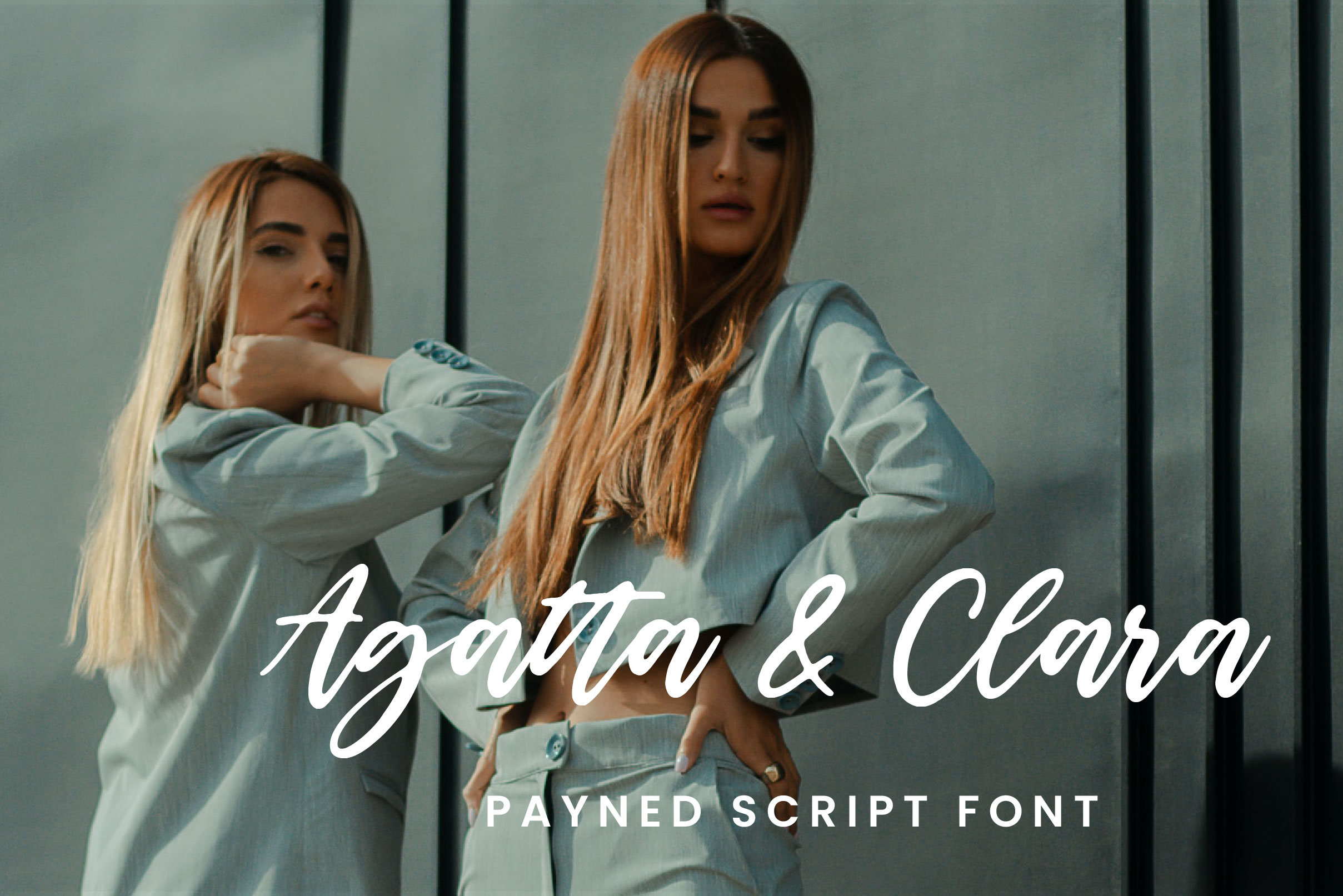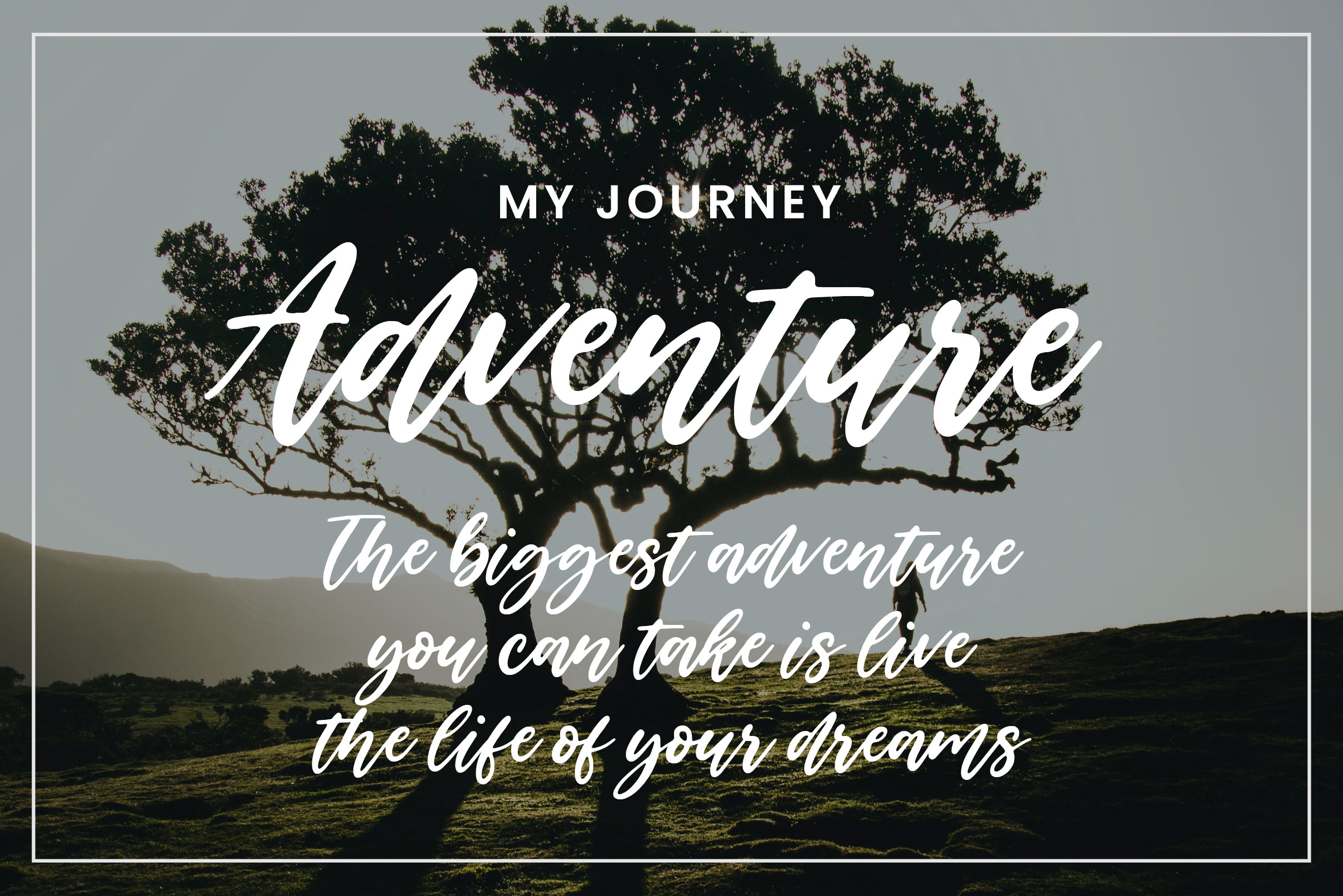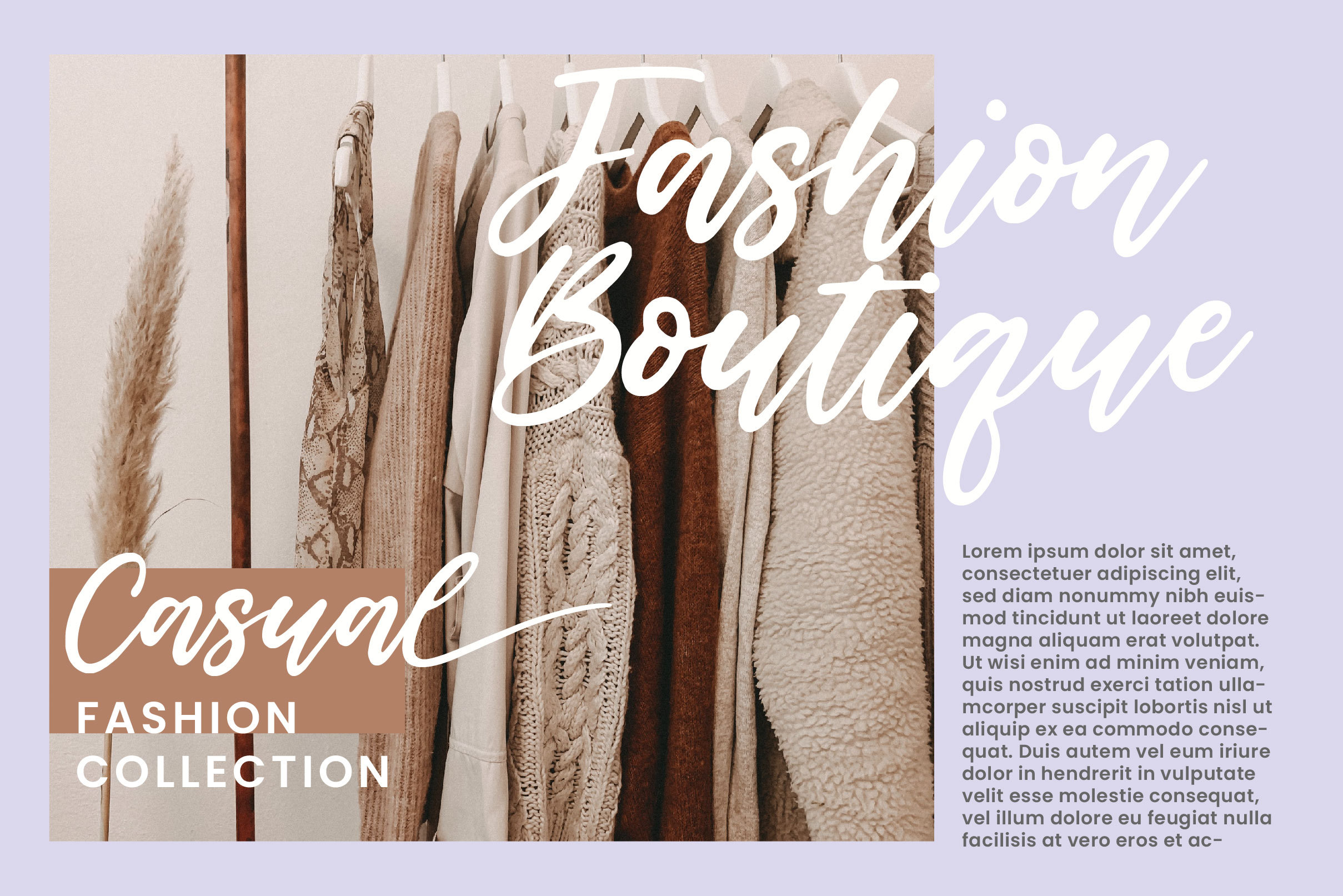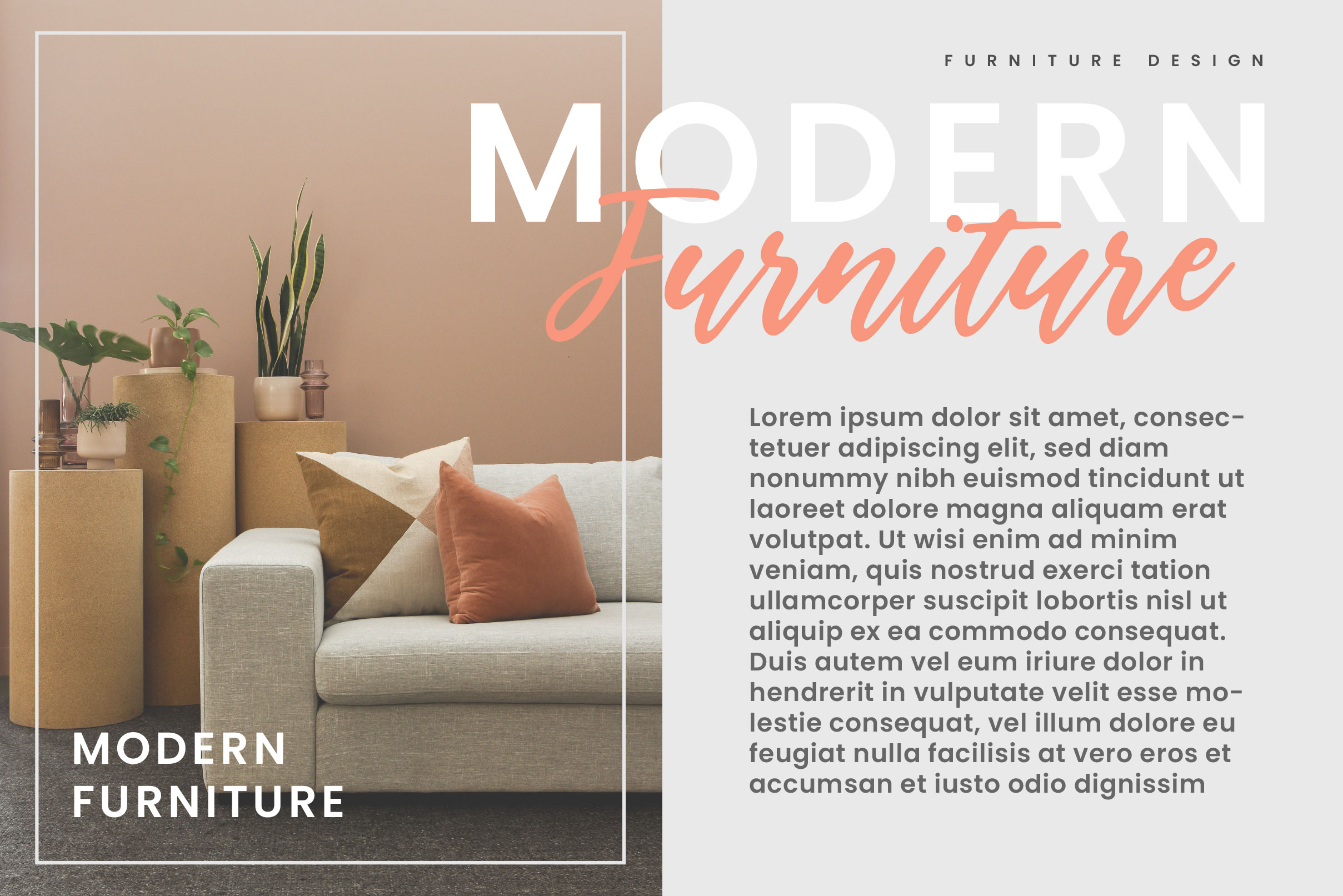
Payned Font
Payned Handwritten Font is a stylish and cool looking handwritten font. It is PUA encoded which means you can access all of the glyphs and swashes with ease! Add it confidently to your projects, and you will love the results.
– Uppercase, Lowercase, Numeral & Punctuation
– Alternate Letters, Ligature & Swash/Tail